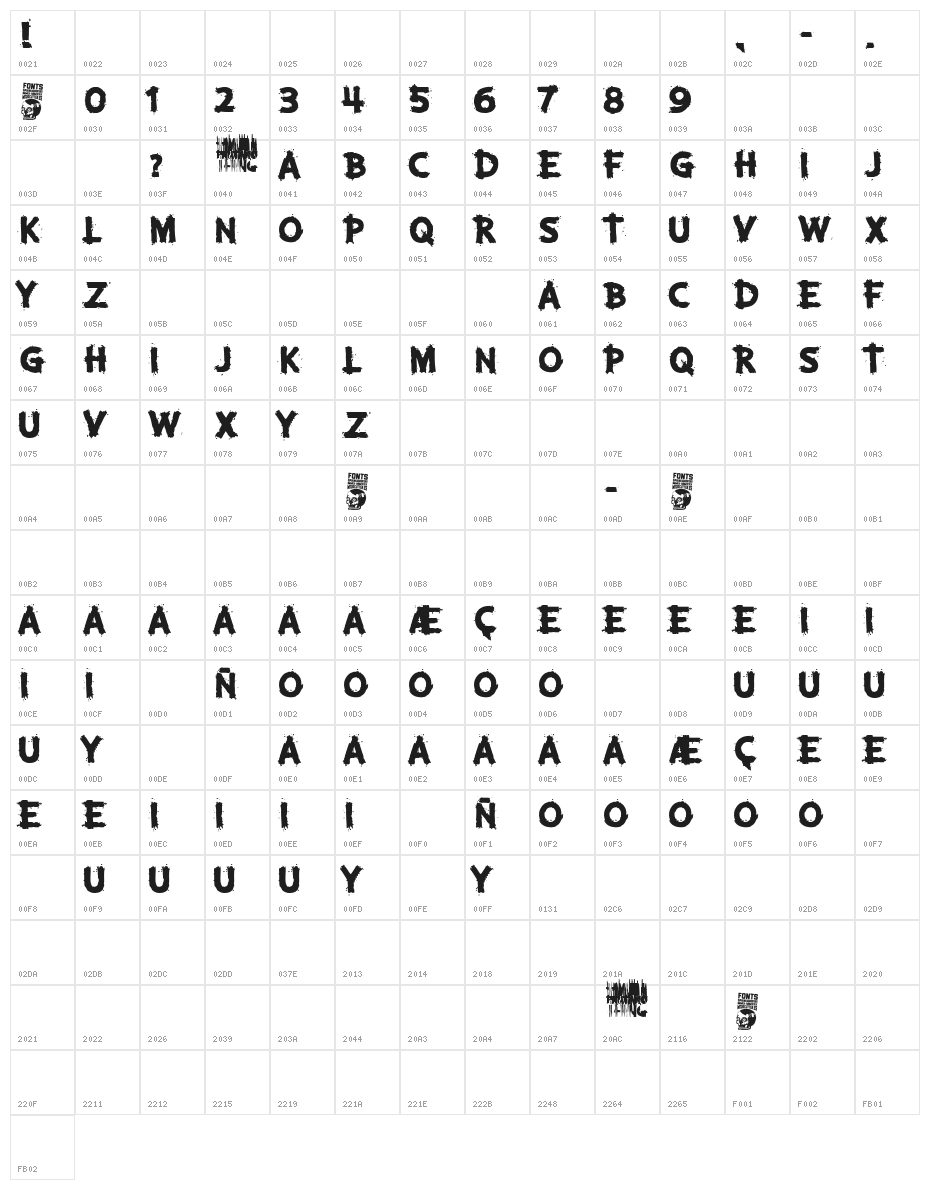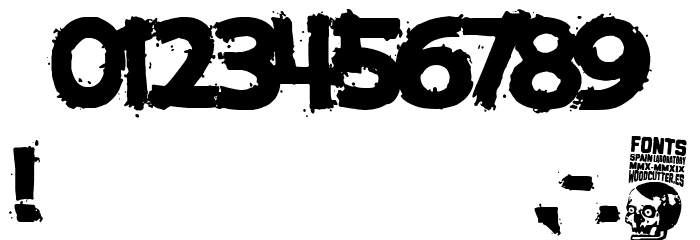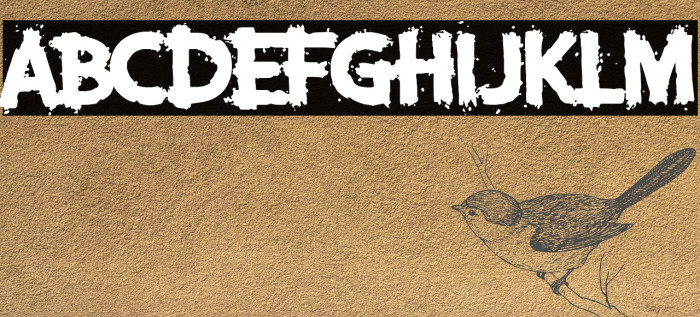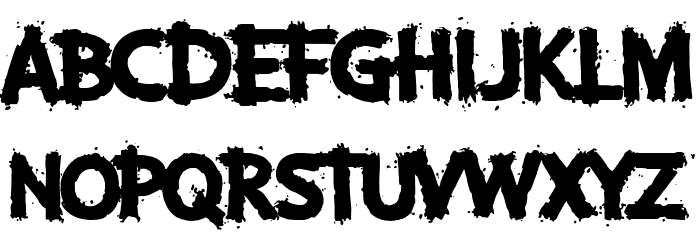
Pantano Thing Font
Pantano Thing Description
This font features a bold, distressed style with a grunge aesthetic. The characters are heavily textured, giving them a rough and rugged appearance. The uppercase and lowercase letters maintain a consistent thickness, while the numbers and special characters follow the same design ethos. The font's unique, edgy look makes it stand out, with each letter appearing as if it has been painted with a brush and left to dry unevenly. This creates a dynamic and energetic feel, perfect for projects that require a strong visual impact.
| Overall Style | Grunge, Edgy, Dynamic |
| Proposed Projects | Ideal for music album covers, event posters, streetwear branding, and edgy graphic designs. |